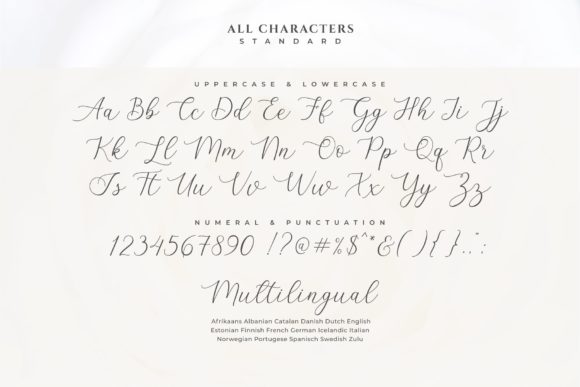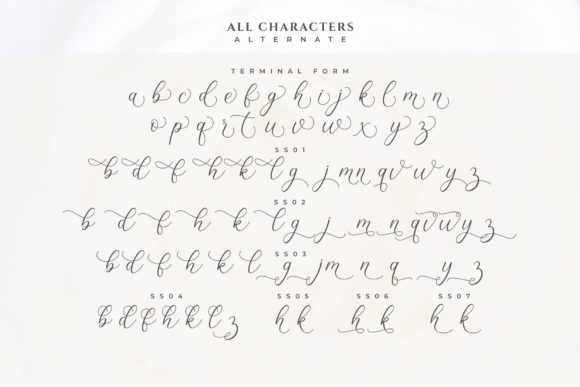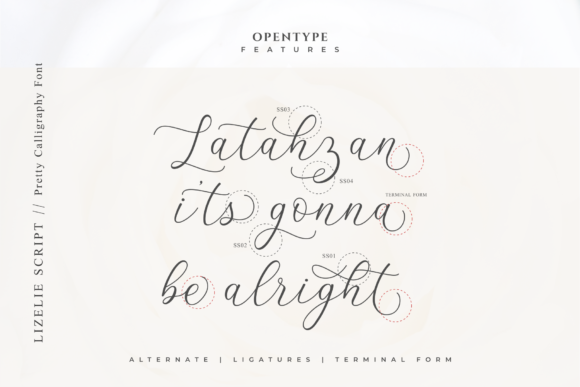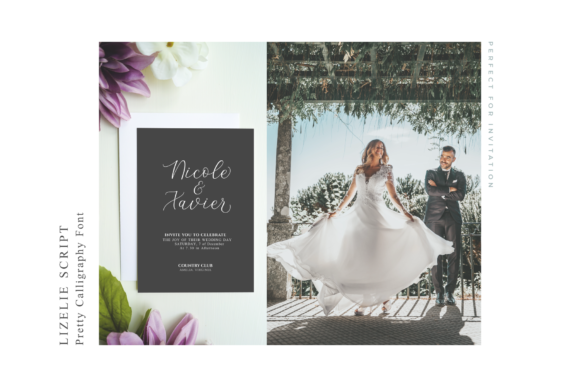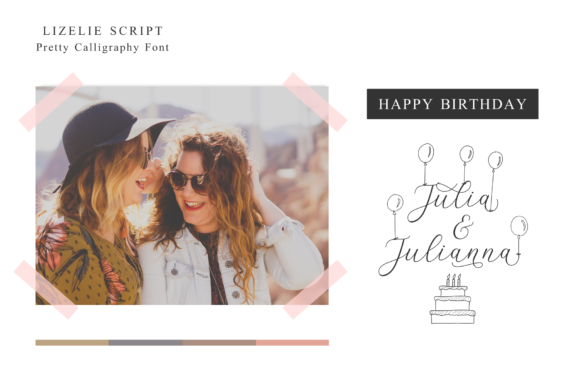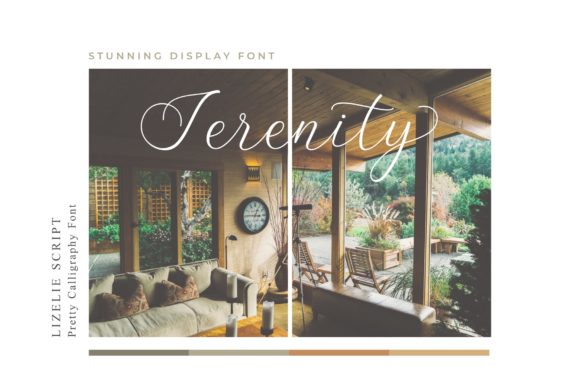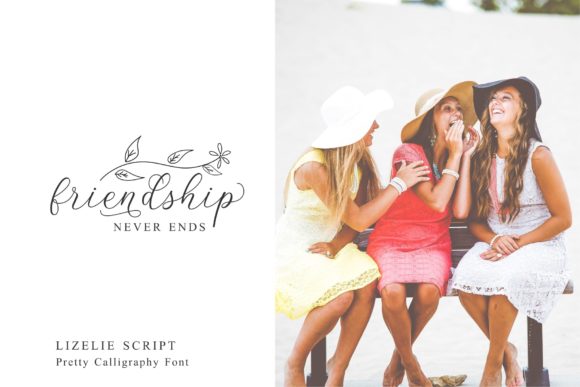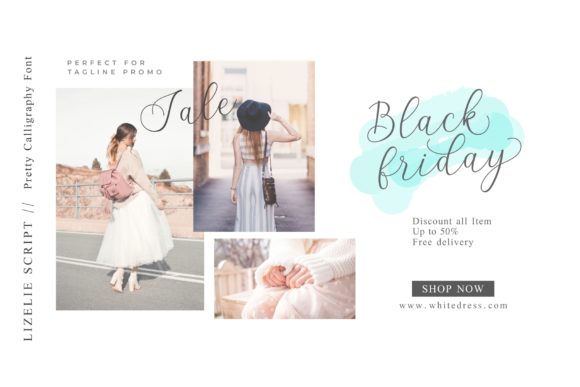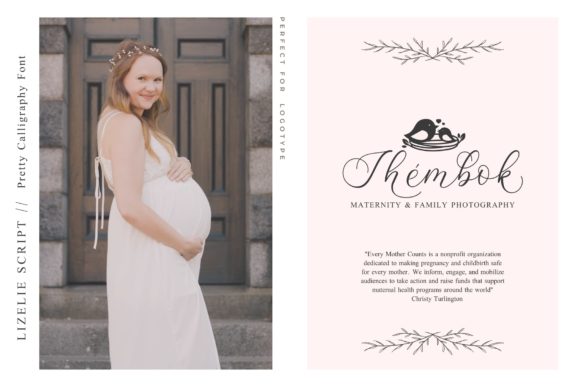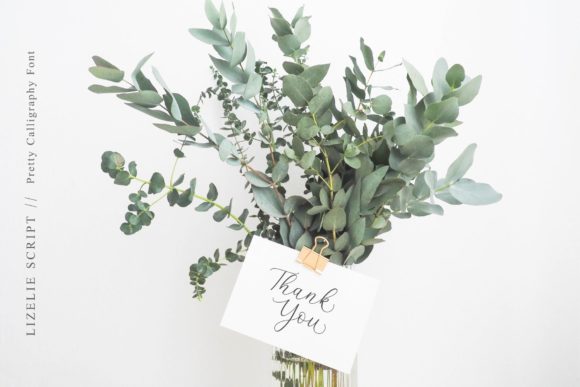
HomeScript FontsLizelie Font Script Fonts Lizelie Font FacebookXPinterestWhatsApp Lizelie Font Poster 2 Lizelie Font Poster 3 Lizelie Font Poster 4 Lizelie Font Poster 5 Lizelie Font Poster 6 Lizelie Font Poster 7 Lizelie Font Poster 8 Lizelie Font Poster 9 Lizelie Font Poster 10 Lizelie Font Poster 11 About Lizelie Font Lizelie pays homage to classic calligraphy with every swash. Fall in love with its contemporary look! DOWNLOAD ON CREATIVE FABRICAThis font is sold and delivered by Creative Fabrica. Font Canyon may earn a commission if you buy through this link. People also explored Creative Store Font Brinattan Font Rollanisa Font Billyra Font Tahiti Sans Font Ratity Font Lost Hills JNL Font Color Hearts Font Smoothing Font 339 0 TagsLizelie Font Previous articleAklay FontNext articleBico De Pena Font LEAVE A REPLY Cancel reply Comment: Please enter your comment! Name:* Please enter your name here Email:* You have entered an incorrect email address! Please enter your email address here Website: Save my name, email, and website in this browser for the next time I comment. Personal Use Free Green Fuz Personal Use Free Read more about this font Yukarimobile Personal Use Free Read more about this font Gonestones Personal Use Free Read more about this font Adelaide Personal Use Free Read more about this font BLOG Using Fonts in Digital Marketing: Tips to Strengthen Your Brand Identity In the realm of digital marketing, every visual element plays a crucial role in shaping a brand's identity, and fonts are no exception. The... Fonts That Capture the Spirit of New York City Transform Your Website: Elevate Your Typography with 7 Best Web Font Generators How to Cut Any Font on Cricut: Convert a Font to SVG (Free)